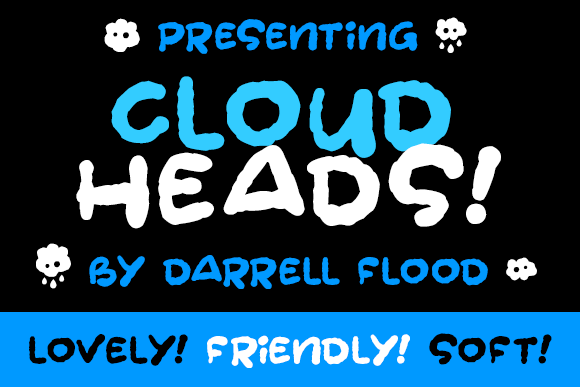
Cloudheads Font
About Cloudheads Font
Cloudheads is a cute, friendly font in a blobby, puffy style. This handwritten font includes adorable little clouds!